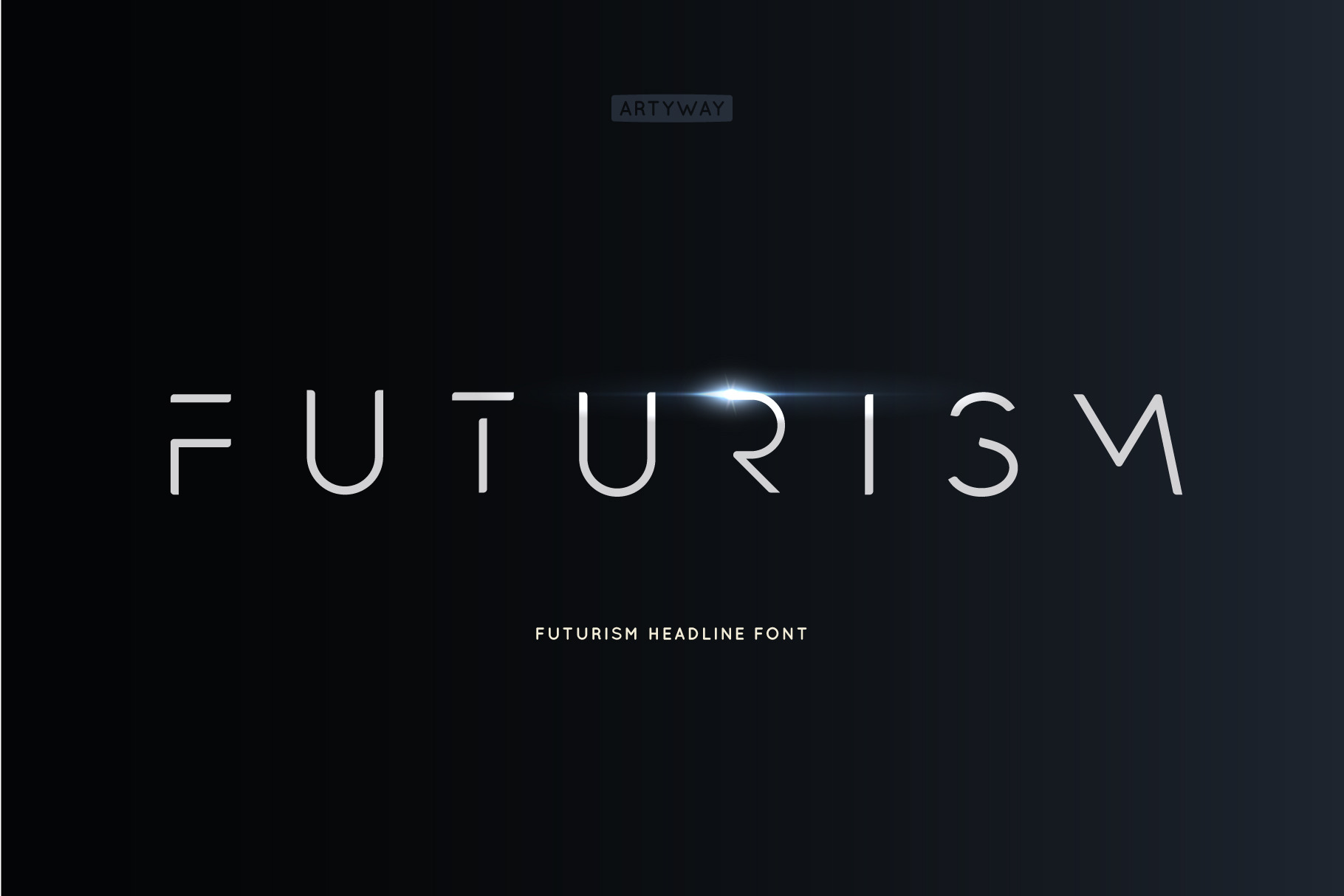
Futurism Headline Font
I am pleased to present you an excellent futuristic font "Futurism" in modern graphic style!
The font supports the Latin alphabet and Cyrillic alphabet. It is recommended to use it at long intervals between letters, but you can customize it perfectly for your own design, use it to create logos, emblems, posters.
Futurism is very stylish, it ideally suited for a space mood, future tech and innovative products!
- Uppercase and lowercase english letters
- Uppercase cyr letters